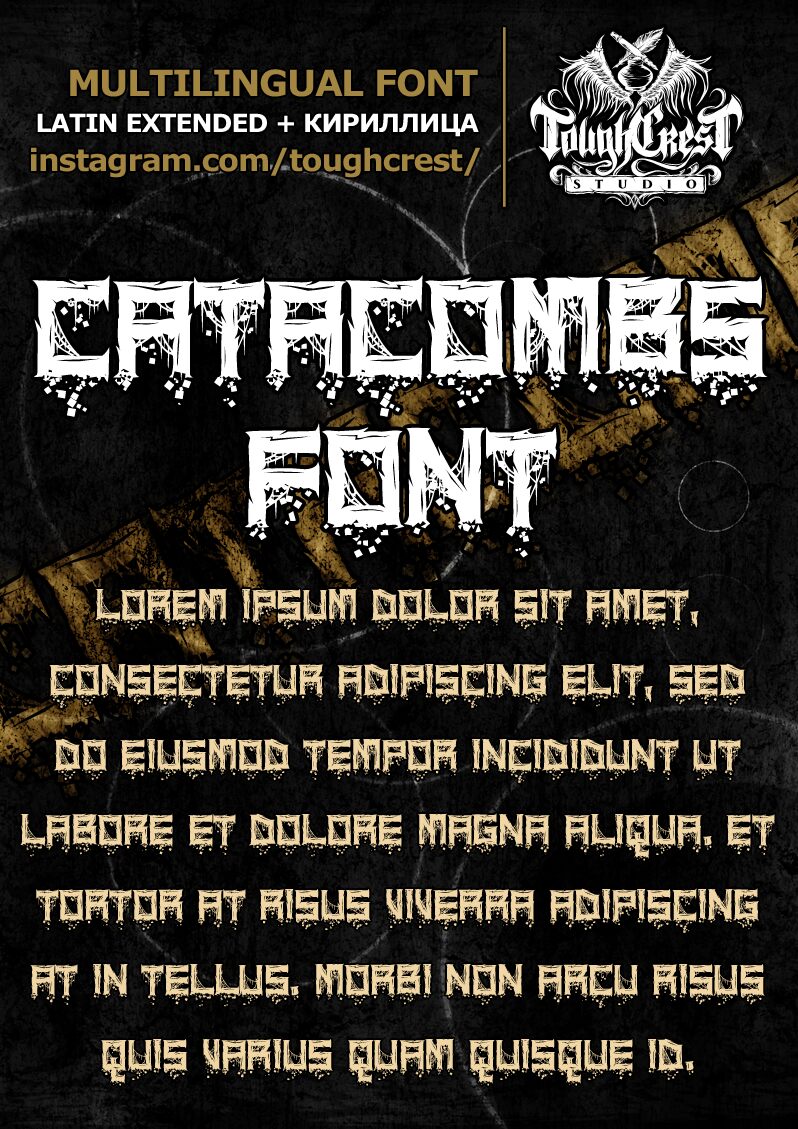
Catacombs font, designed by ToughCrest Studio, is a display font steeped in darkness and mood. Its scary aesthetic is defined by cracked and falling apart characters that form the complete font. The grunge aesthetics are more noticeable with elements such as fragmented sections which fit the modern Gothic theme. All these elements together make Catacombs the ultimate letter style to be used whenever an exaggerated heavy metal or horror visual tone is intended.
Integrate this free display font in horror movie posters, video game titles, rock band t-shirts, graffiti wall designs, themed event invitations, or otherwise. Adding it to books’ covers will also provide them with an intensely edgy visual impact while ensuring they stand out from competitors on store shelves.
**Language Support:**
English, German, Russian, Swedish, Norwegian-Danish, Icelandic.
Supports numbers, currencies, punctuation, and basic math symbols.
This font has also been successfully tested in articles written in Spanish, Italian, French, Ukrainian, Polish, Czech, Portuguese, Hungarian, Slovenian, Slovak, and Turkish.